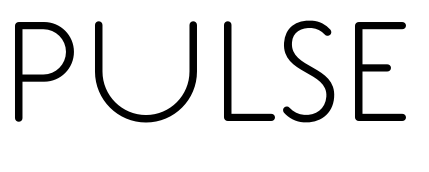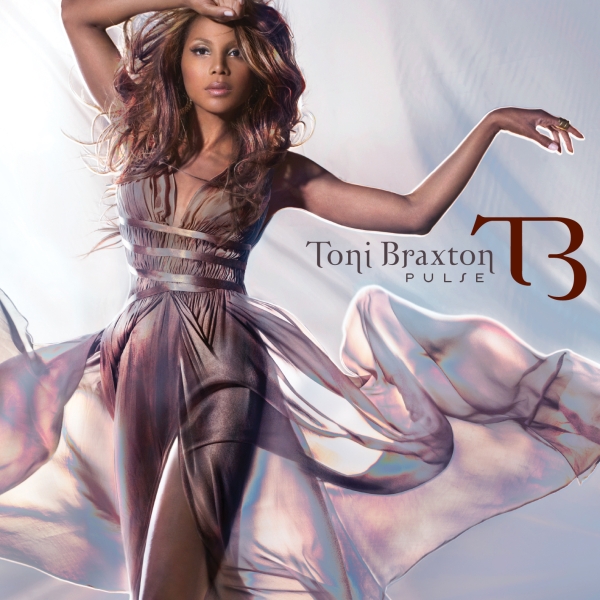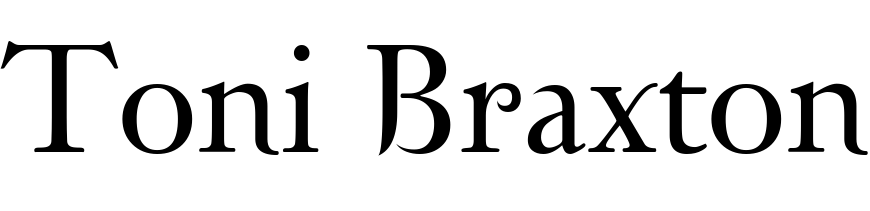
Pulse Font
Fonts in UsePulse is the seventh studio album by American R&B singer Toni Braxton, released in 2010. It features collaborations with several producers and songwriters, and includes the singles "Yesterday" and "Hands Tied."
On the cover of the album, the title is displayed in a rounded sans-serif font with an art deco style similar to Estilo designed by Dino dos Santos, a Portuguese designer. Meanwhile, the artist's name is likely written in Zephyr, a decorative serif typeface created by Gábor Kóthay, a Hungarian designer.